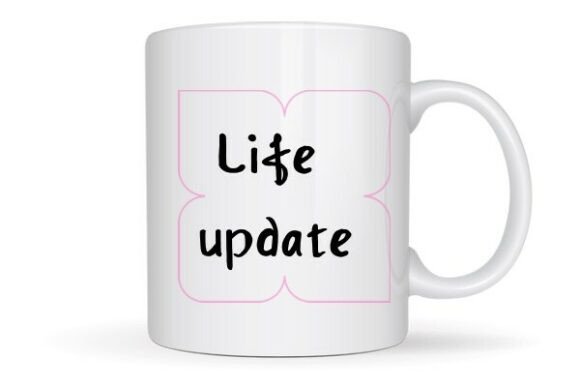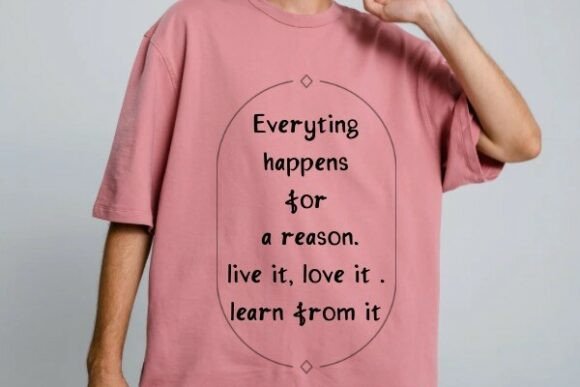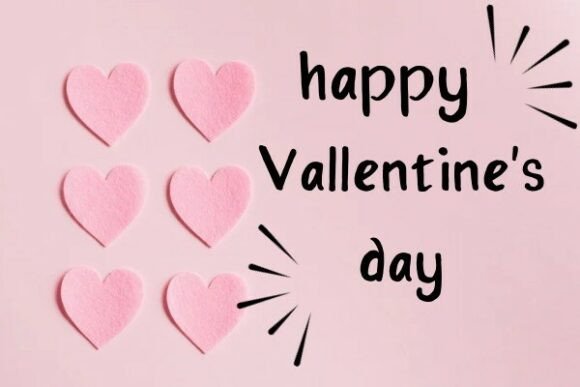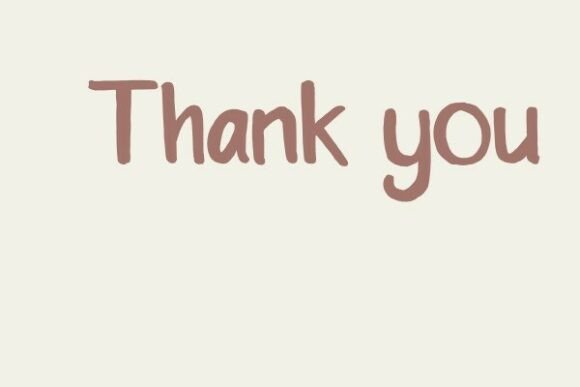
The Designer’s Delight: Cashew Font
I’ll never forget the time I was working on a project for a client’s birthday card. I had all the design elements in place – the colors, the graphics, the overall aesthetic – but something was missing. The font I had chosen just wasn’t doing it for me. It was too formal, too generic, too… boring. I scoured the internet for the perfect font, but nothing seemed quite right. That’s when I stumbled upon Cashew, a handcrafted font that would change the game for me and my design projects.
First Impressions: A Love Affair with Cashew
As soon as I laid eyes on Cashew, I knew I had found the one. This font is like a warm hug for your design projects. It’s natural, authentic, and charismatic – the perfect combination for creating something truly special. Whether you’re working on a greeting card, a mug, a t-shirt, or a mockup, Cashew is the perfect choice.
What I Love About Cashew
- ✨ Unique and quirky: Cashew has a one-of-a-kind handwriting aesthetic that’s sure to make your designs stand out.
- ✅ Highly versatile: This font can be used for a wide range of projects, from playful to professional.
- 💕 Emotional connection: Cashew has a way of evoking feelings and emotions, making it perfect for designs that require a personal touch.
- 🎉 Fun and playful: This font is perfect for designs that require a bit of whimsy and personality.
The Not-So-Perfect Truth: Small Quirks and Limitations
While Cashew is an amazing font, it’s not without its quirks. Here are a few things to keep in mind:
- 🤔 Limited use in very formal designs: Cashew is a highly informal font, so it may not be the best choice for very formal or corporate designs.
- ⚠️ Some letters may be a bit inconsistent: As a handcrafted font, Cashew may have some inconsistencies in lettering and spacing.
The Story Behind Cashew: Designer Inspiration
According to the designer, Cashew was inspired by the natural world and a desire to create a font that felt authentic and handmade. The designer spent countless hours perfecting the letterforms and ensuring that the font had a unique, charismatic appeal.
| Font Name | Cashew Font |
| Author | Uloel Design |
| What makes Cashew unique? | ✨ Cashew has a one-of-a-kind handwriting aesthetic that’s both natural and authentic. |
| Is Cashew suitable for very formal designs? | 🤔 No, Cashew is a highly informal font and may not be suitable for very formal or corporate designs. |